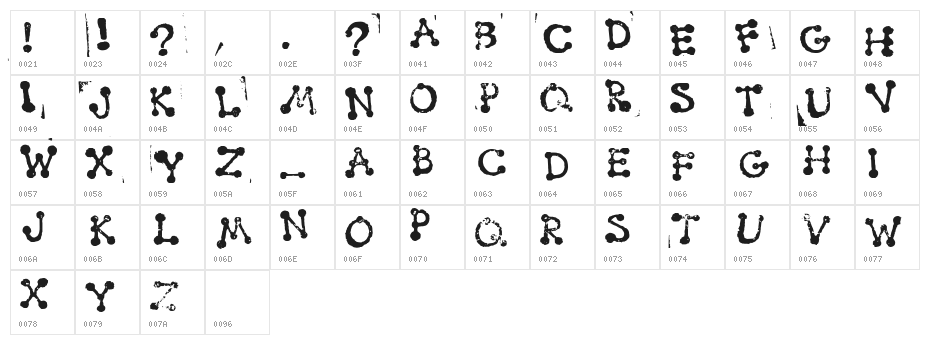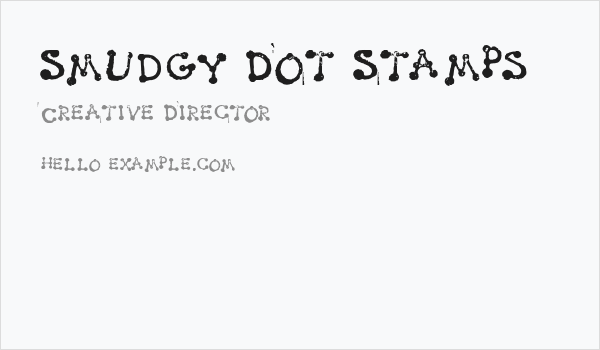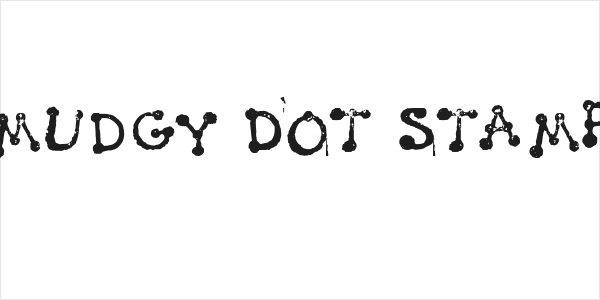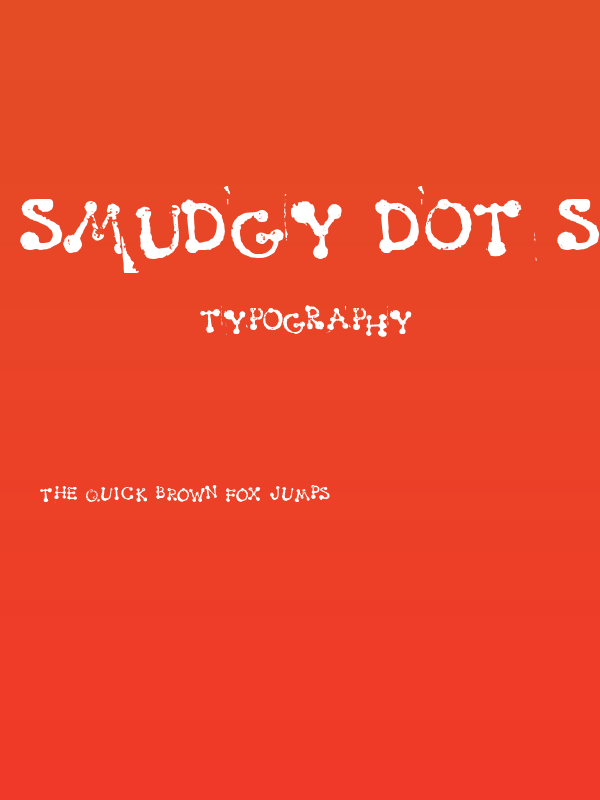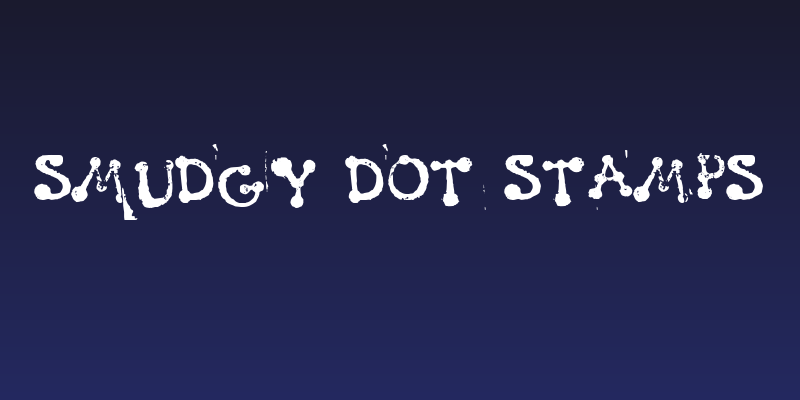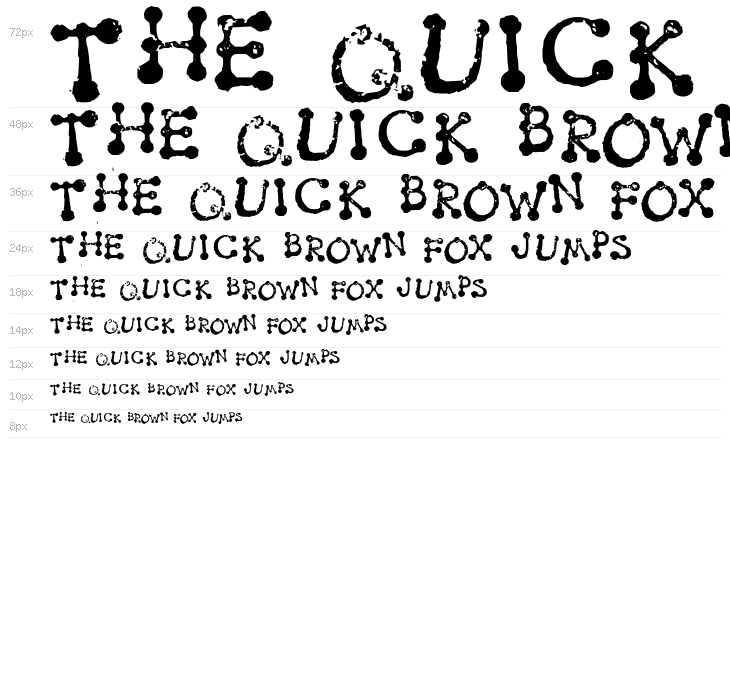
Smudgy Dot Stamps Font
Smudgy Dot Stamps Description
This font features a unique, distressed appearance, reminiscent of ink stamps with smudged edges and dot-like imperfections. The characters are bold and have a rough texture, giving them a handmade, vintage feel. The uppercase and lowercase letters maintain a consistent style, with rounded edges and irregularities that add to the font's charm. The numbers and special characters follow the same design principles, ensuring a cohesive look across all glyphs. This font is ideal for projects that require a rustic or industrial aesthetic, such as posters, album covers, or branding materials that aim to convey authenticity and a touch of nostalgia.
Overall StyleVintage
Proposed ProjectsIdeal for posters, album covers, branding materials, and any design needing a rustic or industrial aesthetic.